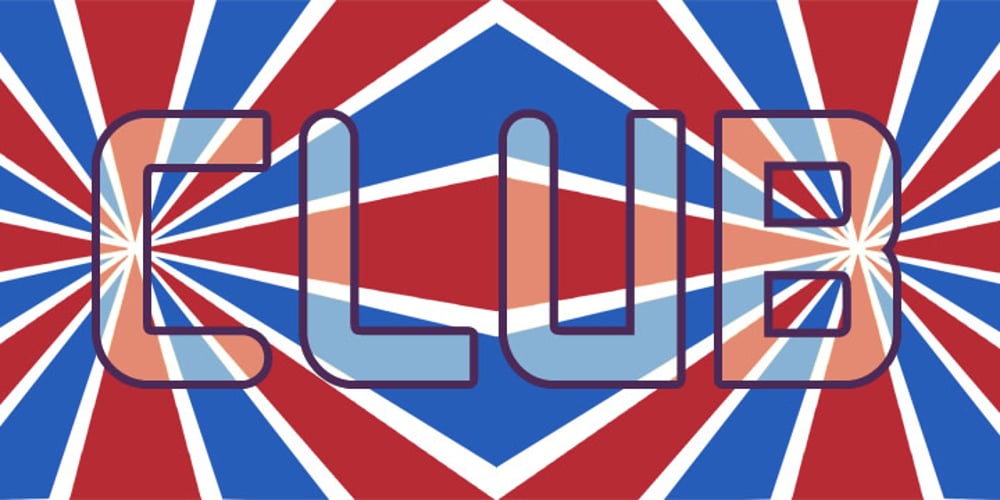
Club Font Family was designed by Keith Bates and published by K-Type. Club contains 3 styles and family package options. Managing to be both simple and distinctive, Club takes inspiration from the packaging and signage of dance music and fashion goods. Three weights for the price of one.